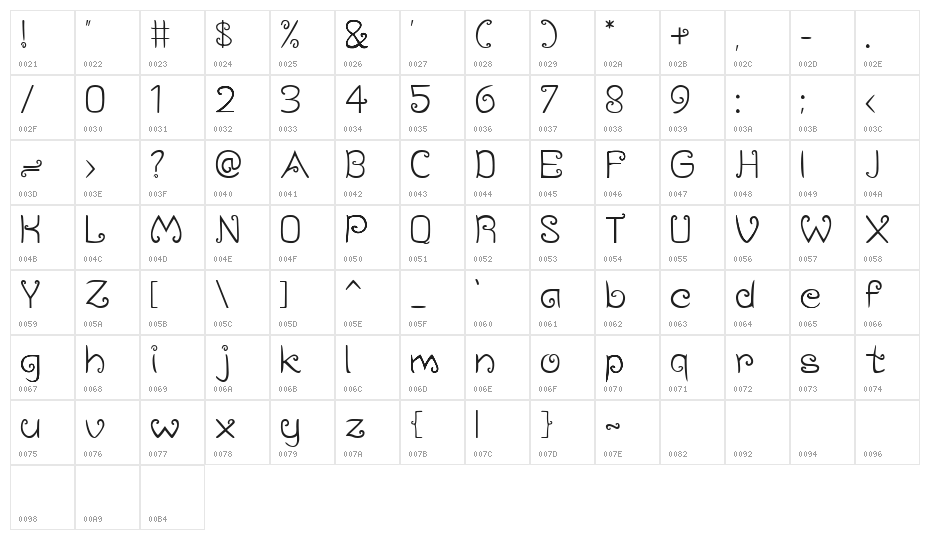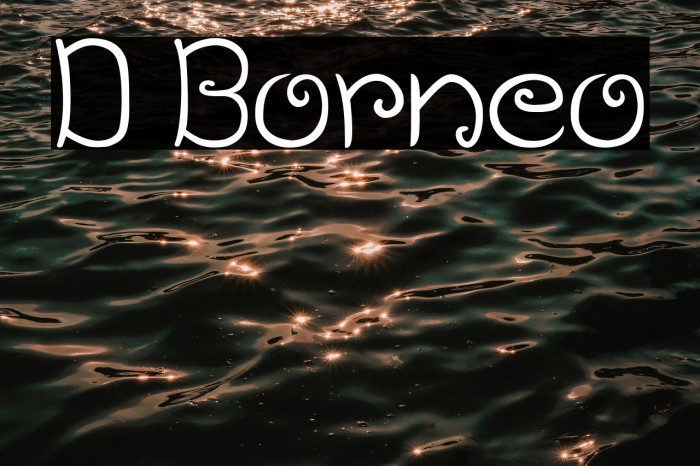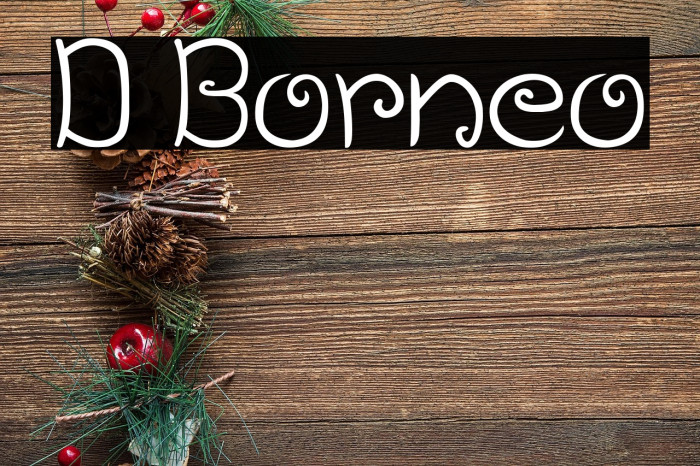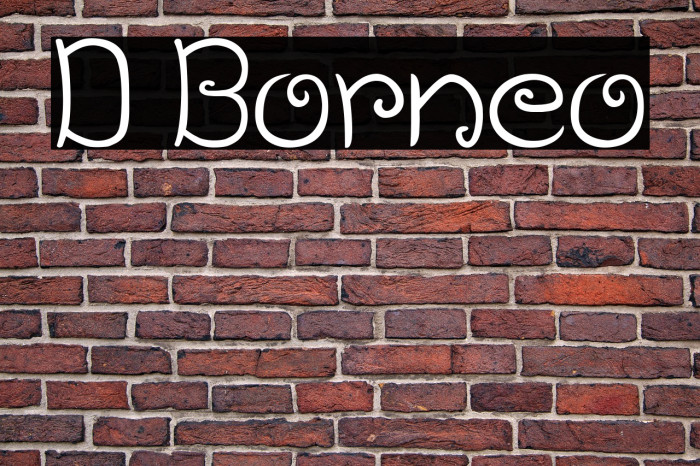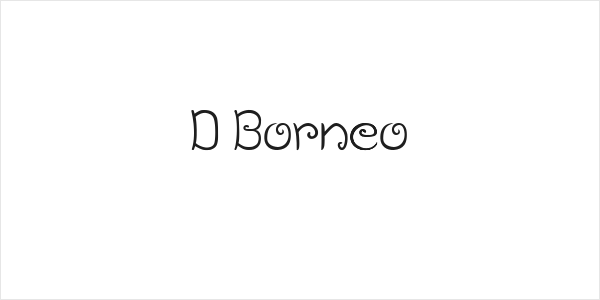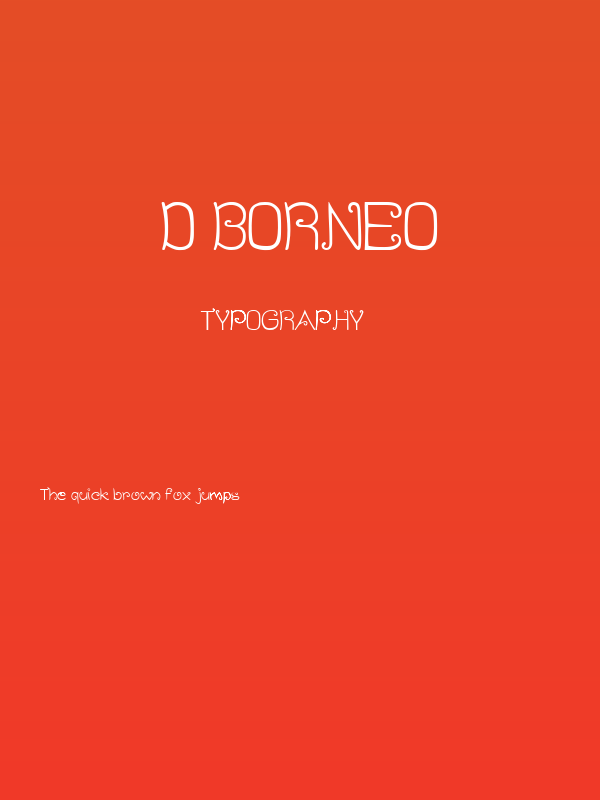
D Borneo Font
D Borneo Description
This font features a whimsical and playful design, characterized by its curly and decorative elements. The letters have a hand-drawn appearance, with unique flourishes that add a touch of creativity and fun. The uppercase and lowercase letters are consistent in style, maintaining a cohesive look throughout. Numbers and special characters follow the same playful theme, making this font suitable for projects that require a light-hearted and artistic touch. The overall design is both engaging and visually interesting, making it ideal for creative projects.
| Proposed Projects | Ideal for children's books, greeting cards, playful branding, and creative posters. |